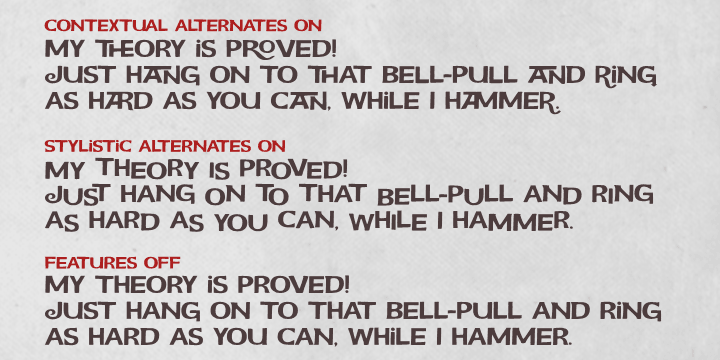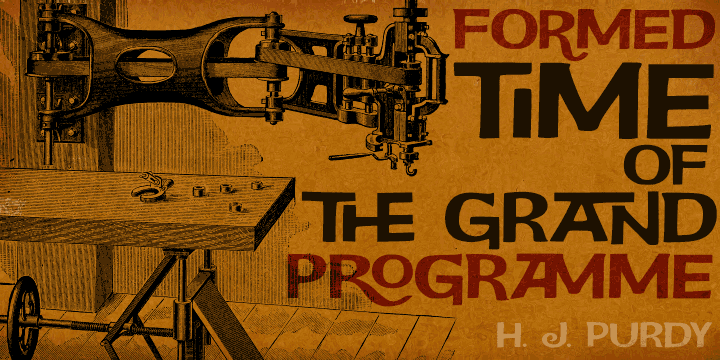
JONGLEUR
Jongleur is an art nouveau and kids font published by PintassilgoPrints.
Jongleur is a multifaceted hand-drawn display typeface based on a Maury Nemoy lettering from 1957.
Packed with handy OpenType features, the font makes automatic substitutions when you turn on its contextual alternates, creating an interesting hand-lettered feel.
The font also brings an extra set of alternate letterforms you can pick by hand to spice up your compositions.
Jongleur is a multifaceted hand-drawn display typeface based on a Maury Nemoy lettering from 1957. Packed with handy OpenType features, the font makes automatic substitutions when you turn on its contextual alternates, creating an interesting hand-lettered feel. If you’re in a, say, messy mood, use the stylistic alternates instead!
The font also brings an extra set of alternate letterforms you can pick by hand to spice up your compositions. It’s a great choice for titles and small amounts of text, perfect for posters, book covers and a wide range of applications.